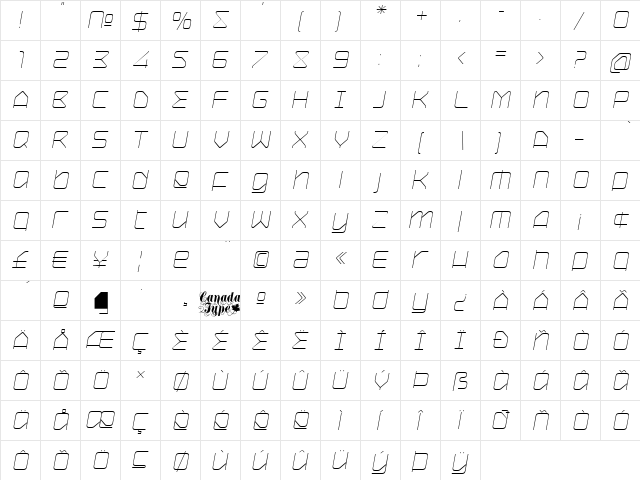
Hydrogen Light Italic
| Foundry | Canada Type |
| Designer | Patrick Griffin |
Design Context for Hydrogen Light Typeface
Hydrogen Light offers clean, dependable letterforms without strong stylistic allegiance, making it a practical choice for designers who need flexibility. Its italic angle brings a sense of urgency and motion to the letterforms. Its slender proportions lend an understated elegance to any composition.
Pro Tip: Use Hydrogen Light for emphasis, pull quotes, and subheadings where its slanted energy can add rhythm to the layout.